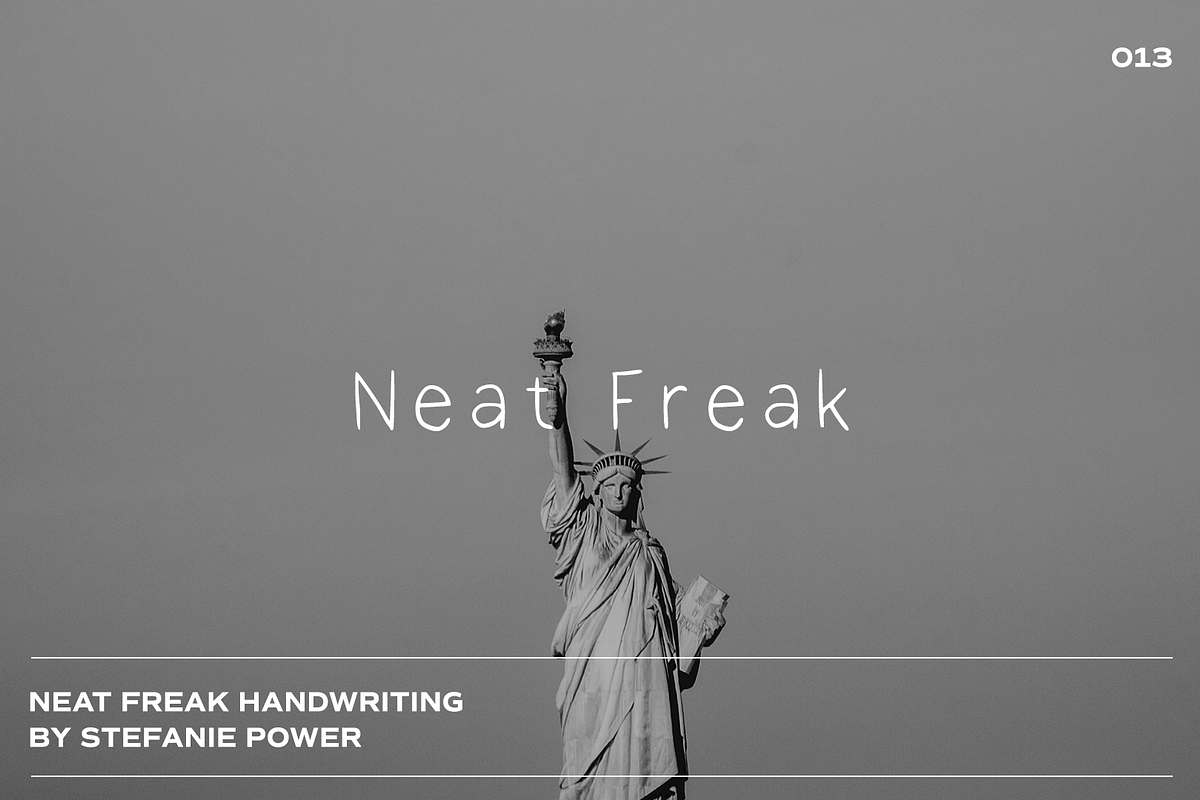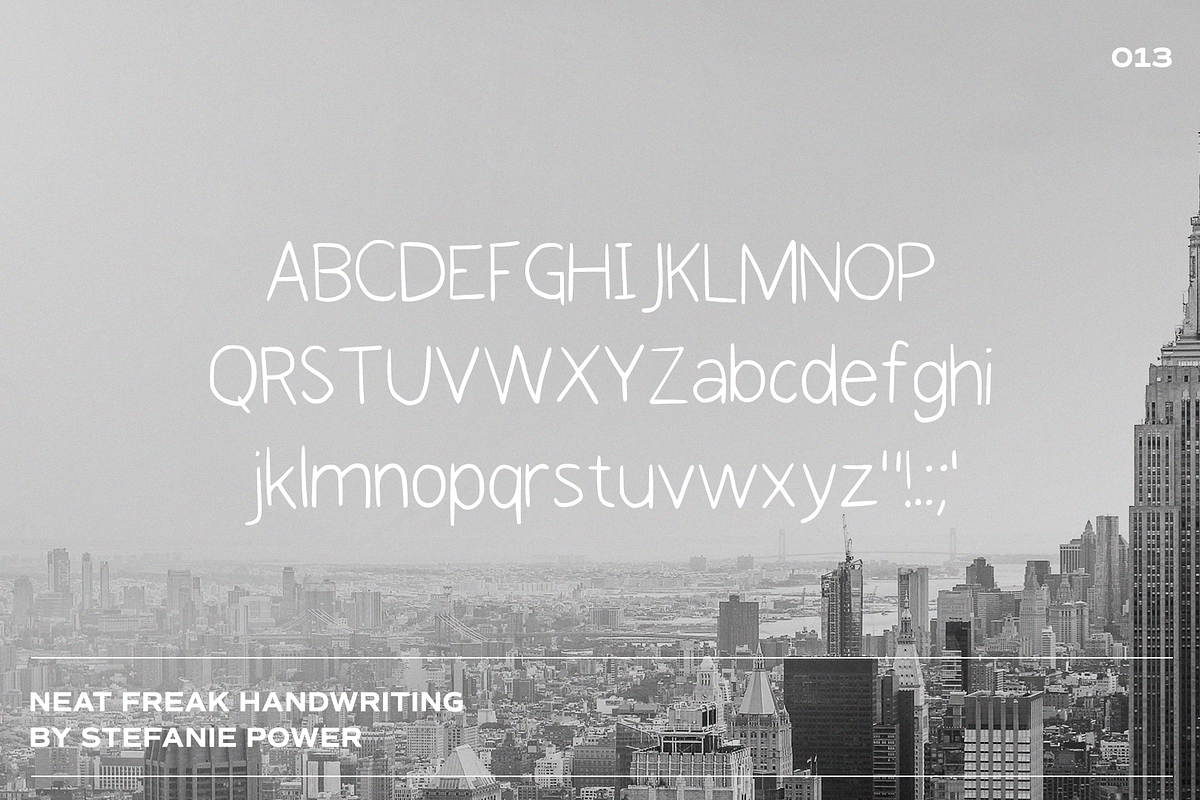
Neat Freak Handwriting | Font
Introducing 'Neat Freak' - the perfect neat handwriting font.
Neat Freak Handwriting • A handwritten script font containing upper & lowercase characters and a range of punctuation and numbers.